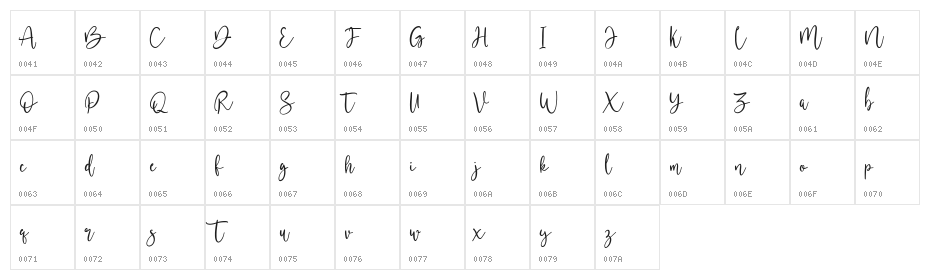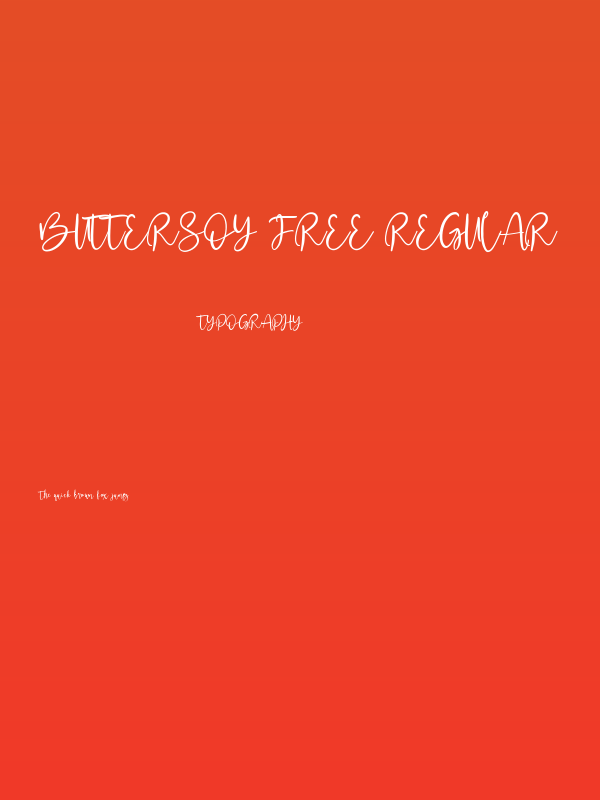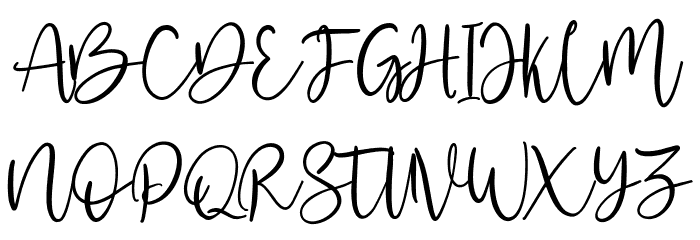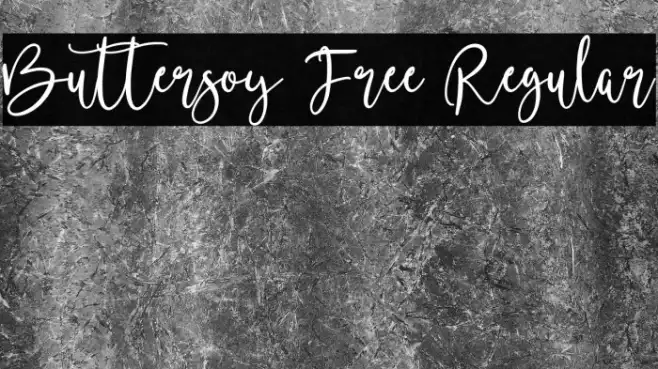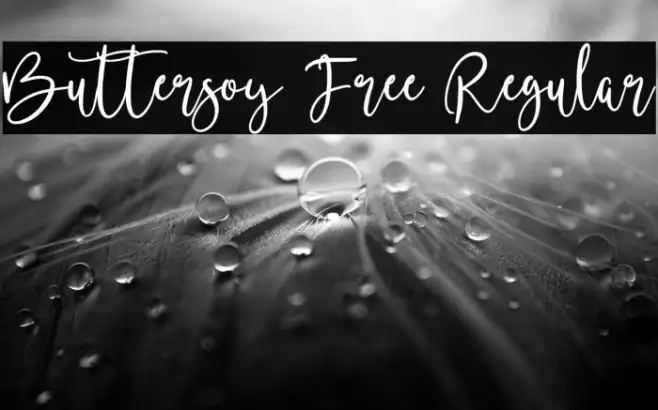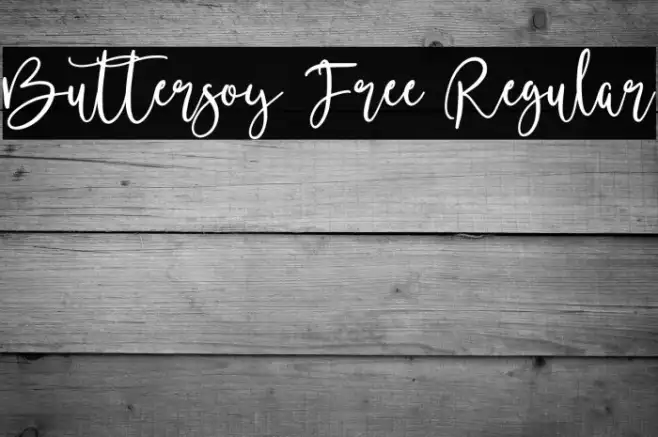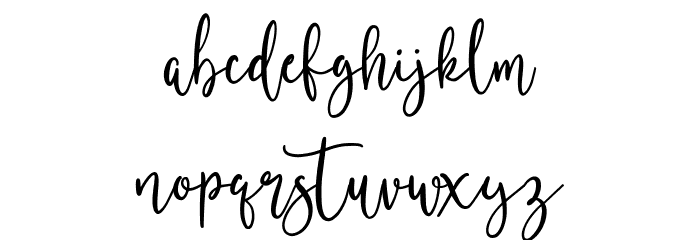
Buttersoy Free Regular Font
Buttersoy Free Regular Description
This font exudes a lively and expressive handwritten style, characterized by its fluid and dynamic strokes. The letters are crafted with a sense of movement, featuring elegant loops and curves that give it a personal touch. The uppercase letters are bold and prominent, while the lowercase letters maintain a consistent flow, enhancing readability. The overall design is both playful and sophisticated, making it suitable for a variety of creative projects. Its unique style captures attention and adds a touch of elegance to any text.
| Proposed Projects | Ideal for wedding invitations, greeting cards, branding, and social media graphics. |